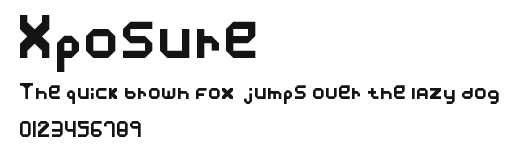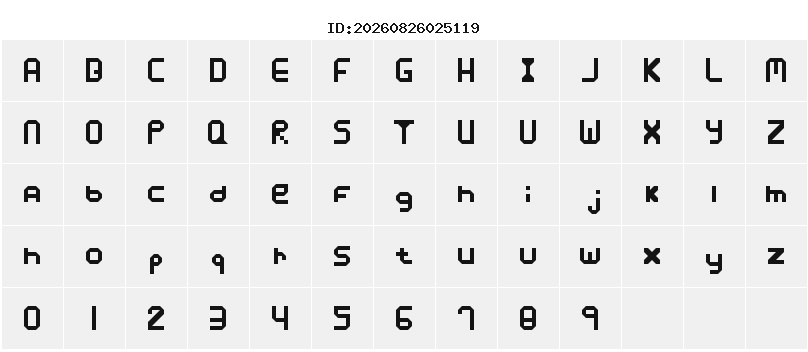
• Font Name: Xposure
• Font ID: FontStruct Xposure
• Full Font Name: Xposure Regular
• PostScript Name: Xposure
• Character Count: 69
• Designer: toughluck
• Description: This font was created using FontStruct (http://fontstruct.fontshop.com)
About Xposure.ttf
Xposure.ttf is a modern, elegant sans-serif font designed for ultimate readability and visual harmony. Perfect for branding, headlines, web design, and print materials.